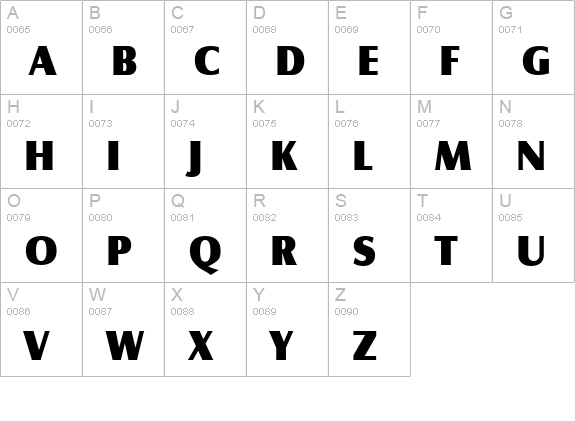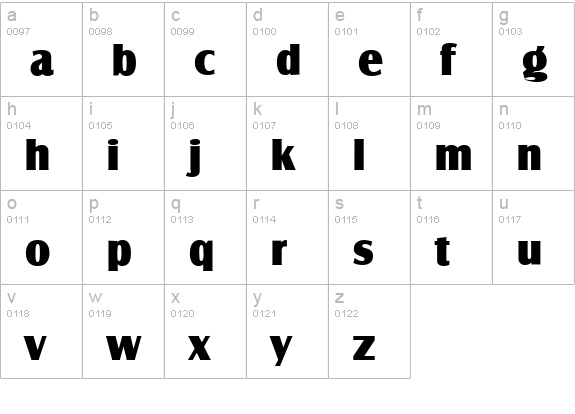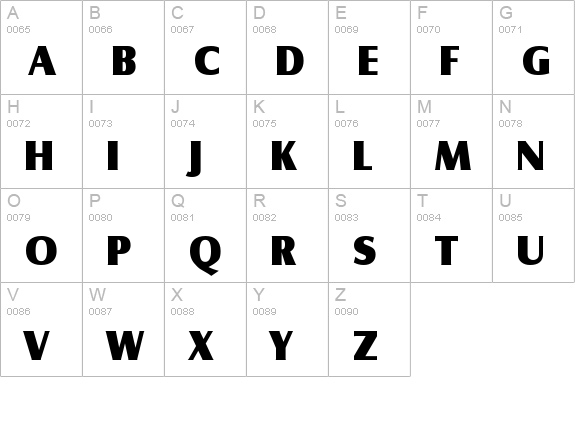
SalzburgSerial-Heavy-Regular is a heavy, high-impact variant in the SalzburgSerial typeface family \xE2\x80\x94 well suited to high-impact headlines, posters, and display advertising.
SalzburgSerial-Heavy-Regular is a versatile and modern font that exudes a strong and bold presence. With its sleek lines and sturdy design, this typeface is perfect for making a statement in any project. Whether used for headlines, logos, or branding materials, SalzburgSerial-Heavy-Regular demands attention and conveys a sense of confidence. What sets this font apart is its ability to strike the perfect balance between elegance and strength, making it a go-to choice for designers looking to make a bold impact. The clean and clear letterforms ensure readability while adding a touch of sophistication to any text. Best of all, SalzburgSerial-Heavy-Regular is free to download at FontsMarket.com, making it accessible to all designers and creatives looking to elevate their work with a touch of modern style. Don't miss out on the opportunity to add this stunning font to your collection and take your designs to the next level.